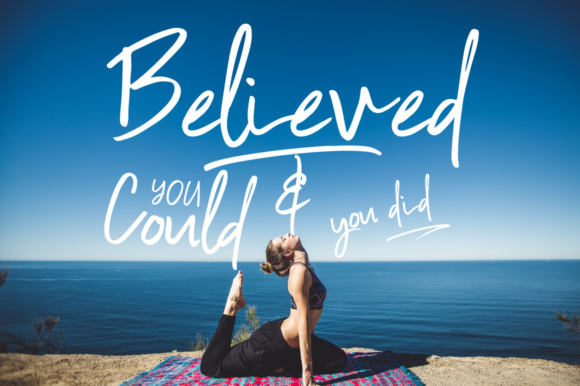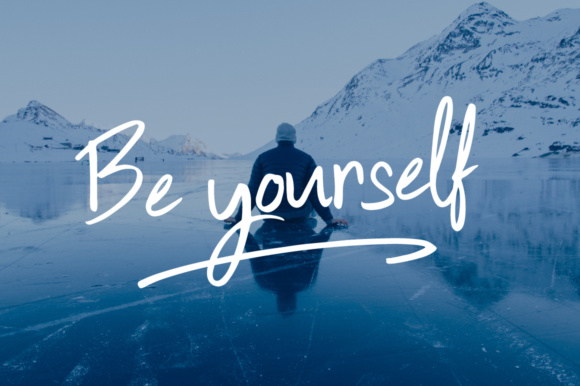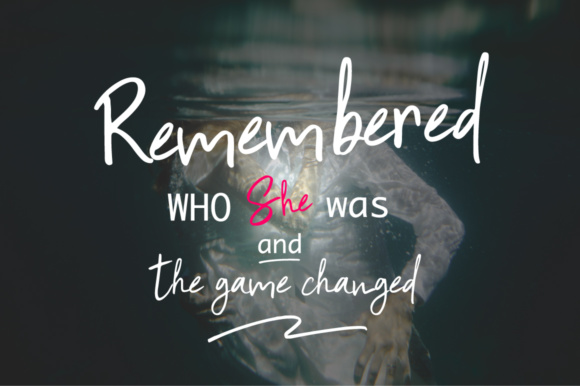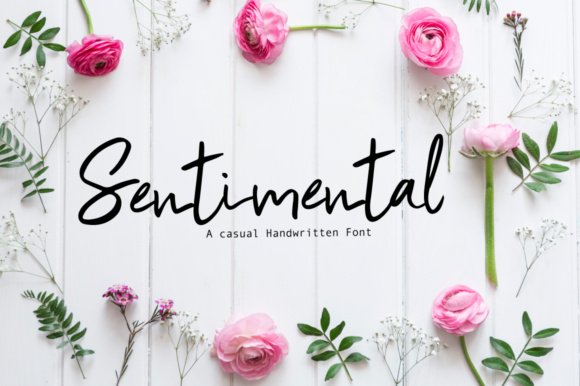
Introduction to Sentimental Font
The Sentimental is a beautiful handwritten script.
It’s perfect for wedding invitations, blogs, logos, and much more .
Key Features of Sentimental Font
Why Choose Sentimental Font?
Sentimental Font offers exceptional quality and versatility, making it a valuable addition to your design toolkit. Whether you’re creating for personal projects or commercial use, Sentimental Font delivers professional results.